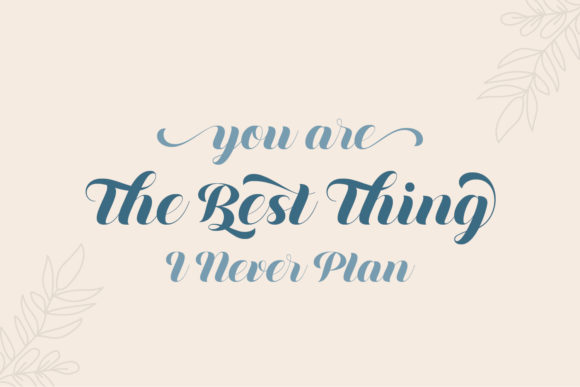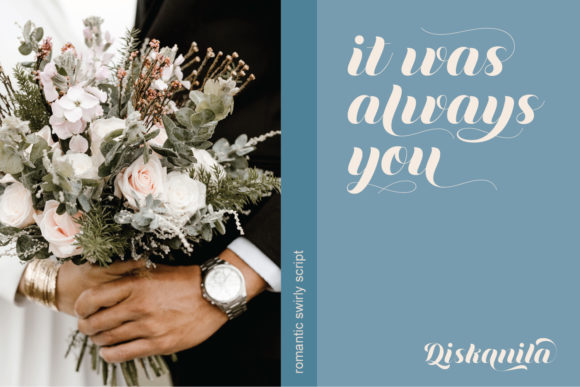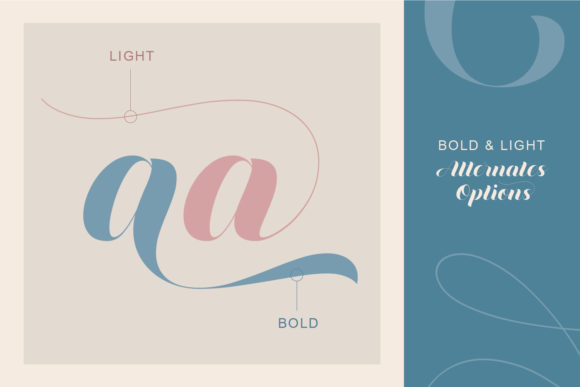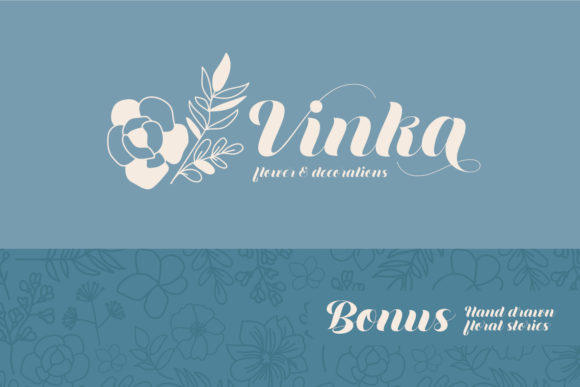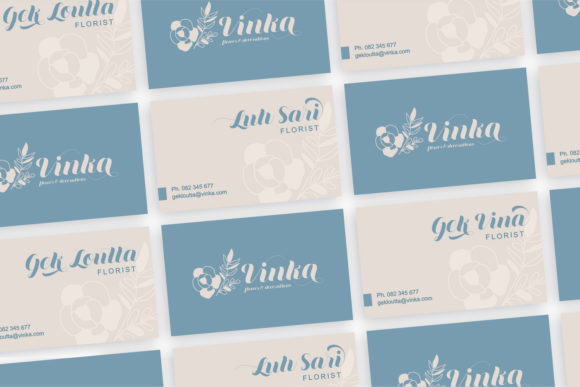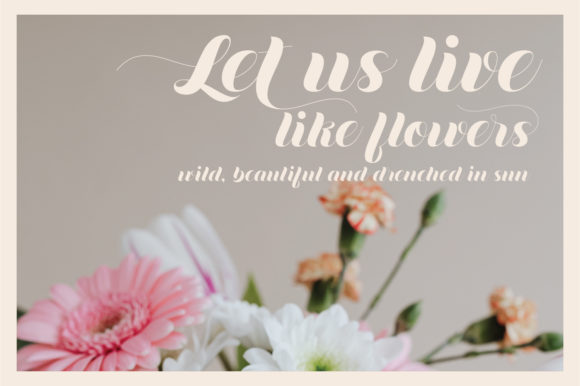
Introducing Diskanila Font: The Ultimate Romantic Swirly Handwritten Font
Are you a designer or crafter looking for a font that can add a touch of romance and elegance to your designs? Look no further than Diskanila Font! This beautiful, swirly handwritten font is perfect for creating stunning wedding invitations, thank you cards, quotes, greeting cards, logos, business cards, and more.
What Makes Diskanila Font So Special?
Diskanila Font is a romantic, swirly handwritten font that is designed to add a touch of whimsy and charm to your designs. Its unique, flowing script is perfect for creating beautiful and eye-catching designs that will leave a lasting impression. Whether you’re designing for a wedding, a special occasion, or just want to add a personal touch to your designs, Diskanila Font is the perfect choice.
Diskanila Font is especially perfect for wedding and event designs. Its romantic and elegant script is sure to add a touch of sophistication and glamour to any design. Use it to create stunning wedding invitations, save the dates, thank you cards, and more. You can also use it to create beautiful event branding, such as logos, business cards, and programs.
Easy to Use and Customize
One of the best things about Diskanila Font is that it’s PUA encoded, which means you can access all of the glyphs and swashes with ease! This makes it easy to customize your designs and add your own personal touch. With Diskanila Font, you can create unique and beautiful designs that reflect your personal style.
Diskanila Font is versatile and can be used for a wide range of design projects. Here are just a few ideas to get you started:
• Wedding invitations and save the dates
• Thank you cards and greeting cards
• Quotes and posters
• Logos and business cards
• Event branding and programs
Why Choose Diskanila Font?
So why choose Diskanila Font for your design projects? Here are just a few reasons:
• Unique and elegant script
• Perfect for wedding and event designs
• PUA encoded for easy customization
• Endless design possibilities
• Easy to use and customize
Tips for Using Diskanila Font
Here are a few tips for using Diskanila Font in your designs:
• Use it with a simple background to make the font stand out
• Experiment with different colors and textures to add depth and interest
• Pair it with other fonts to create a unique and interesting combination
• Use it to add a personal touch to your designs
Diskanila Font is a beautiful, romantic swirly handwritten font that is perfect for adding a touch of elegance and whimsy to your designs. With its unique script, PUA encoding, and endless design possibilities, it’s the perfect choice for designers and crafters looking to create stunning designs. Whether you’re designing for a wedding, a special occasion, or just want to add a personal touch to your designs, Diskanila Font is the perfect choice.